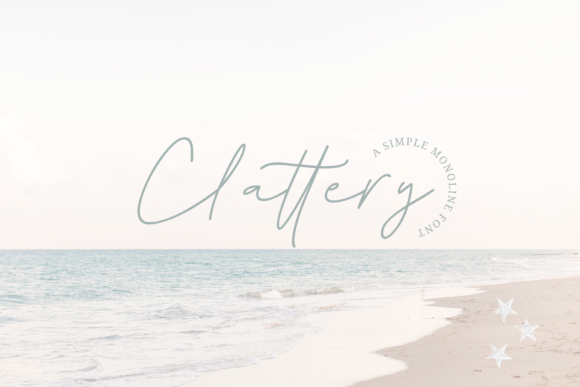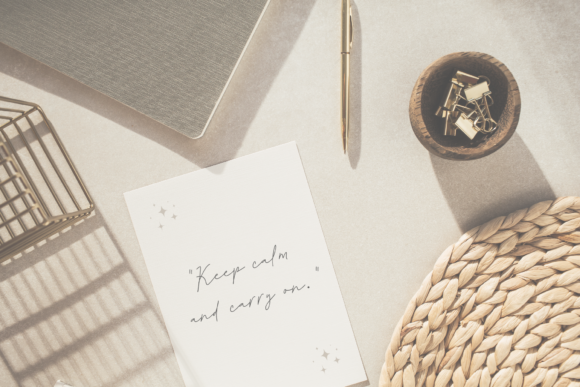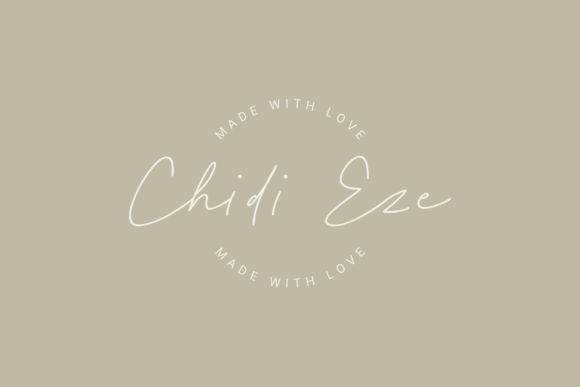
About Clattery Font
Clattery is a simple monoline script font. It features an incredibly classy style, while still keeping a friendly feel. Clattery is the perfect font for making original and outstanding designs.